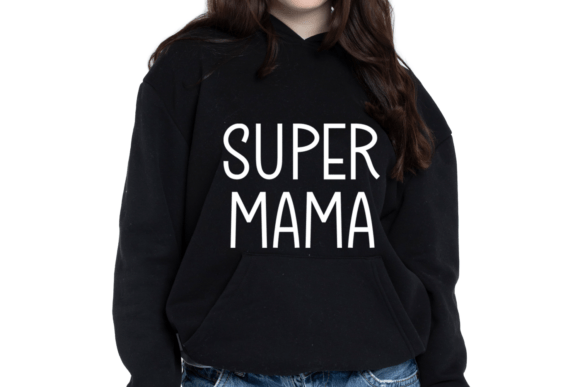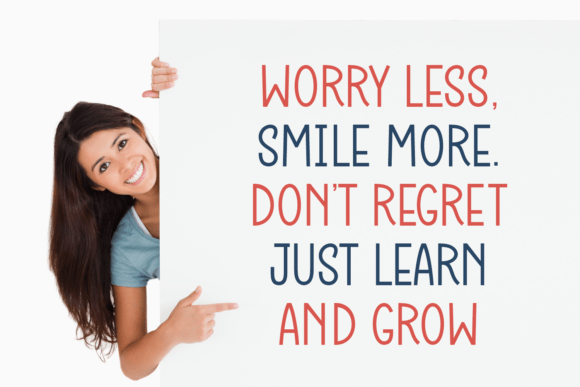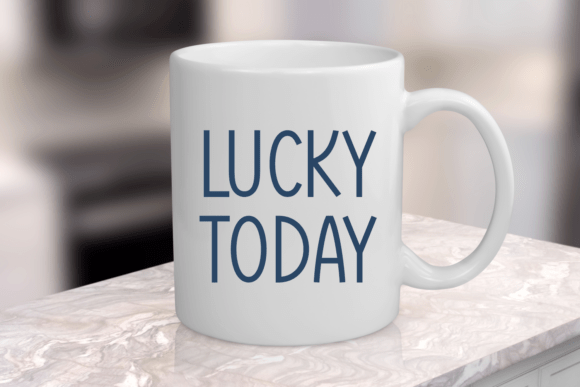
Introduction to Perfect Festival Font
Do you remember the rush of excitement when you finally landed your dream creative project? The thrill of bringing your unique vision to life, and the satisfaction of watching it resonate with your audience? For designers, moments like these are what make all the late nights and early mornings worth it. And when it comes to making a lasting impression, the right font can be the key to unlocking that perfect balance of style and substance.
Enter the Perfect Festival Font, a stunning sans-serif typeface that embodies the essence of modernism and clarity. With its tall x-height, monolinear stroke, and subtly rounded terminals, this font offers a friendly yet professional silhouette that’s sure to elevate your creative endeavors. Whether you’re working on a free download for a community festival or designing a high-quality logo for a lifestyle brand, the Perfect Festival Font is an indispensable design resource that’s sure to deliver.
Key Features of Perfect Festival Font
- Unique, hand-drawn design with a playful and vibrant style, perfect for creative projects and events.
- Perfect for use in festival posters, flyers, social media graphics, and other promotional materials.
- Instantly add a fun and lively touch to any creative project with this versatile and eye-catching font.
Honest Review: Perfect Festival Font
I recently stumbled upon the Perfect Festival Font, and I have to say, it’s a pretty cool find. As a designer, I’m always on the lookout for high-quality design resources that can elevate my creative projects.
Here are a few things that work well with the Perfect Festival Font:
- ✨ The font is incredibly versatile and can be used for a variety of applications, from music festivals to outdoor events.
- ⚠️ The font may not be suitable for formal or corporate events, as it has a more playful and casual tone.
- ⚠️ The font is not suitable for small text sizes, as the characters may become blurry and difficult to read.
Overall, I’m impressed with the Perfect Festival Font. It’s a great addition to any designer’s toolkit, and I can see it being used in a variety of creative projects. With its high-quality design and versatility, it’s definitely worth checking out.
To get the most out of the Perfect Festival Font, try using it with a transparent background to create a unique design. You can also use it as a design resource for your next creative project. With its high-quality design, the Perfect Festival Font is perfect for any project.
The Perfect Festival Font is commonly used for creative projects such as posters, flyers, and social media graphics. It’s also a great font for branding and logo design. With its unique and stylish design, the Perfect Festival Font is a must-have for any designer.